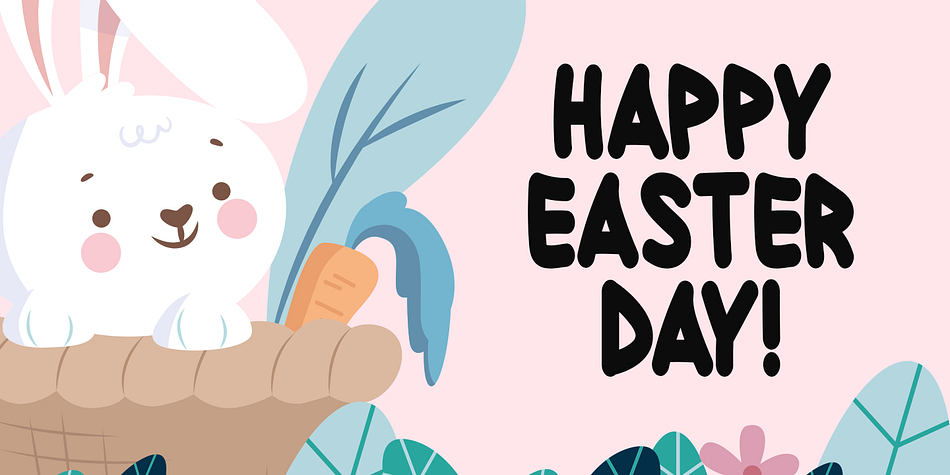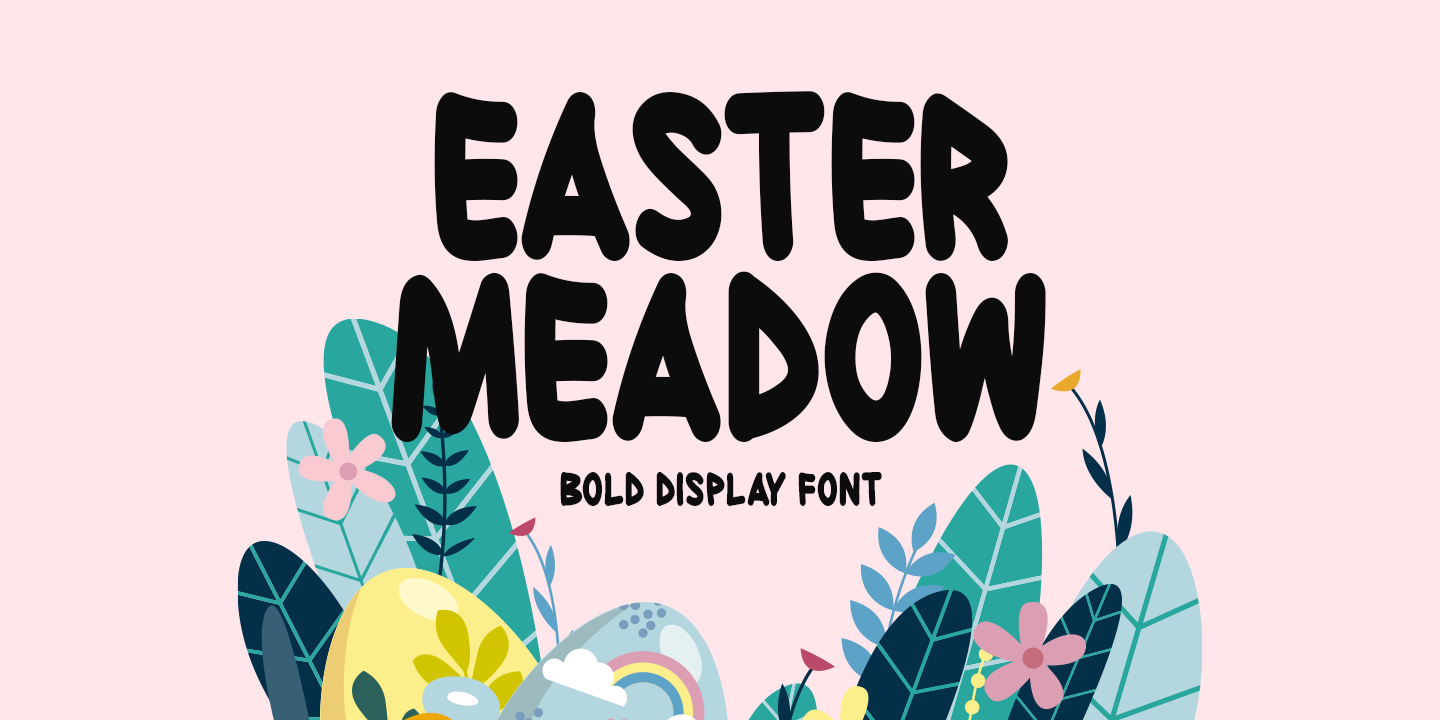
EASTER MEADOW
Designed by Md. Shohail Bhuiyan, Easter Meadow is a display sans and hand display font family published by Seemly Fonts.
Easter Meadow is a striking, bold display font. It can easily be matched to an incredibly large set of projects, so add it to your creative ideas and notice how it makes them stand out!
Foundry Seemly Fonts
Styles Display Sans, Hand Display
Designer Md. Shohail Bhuiyan